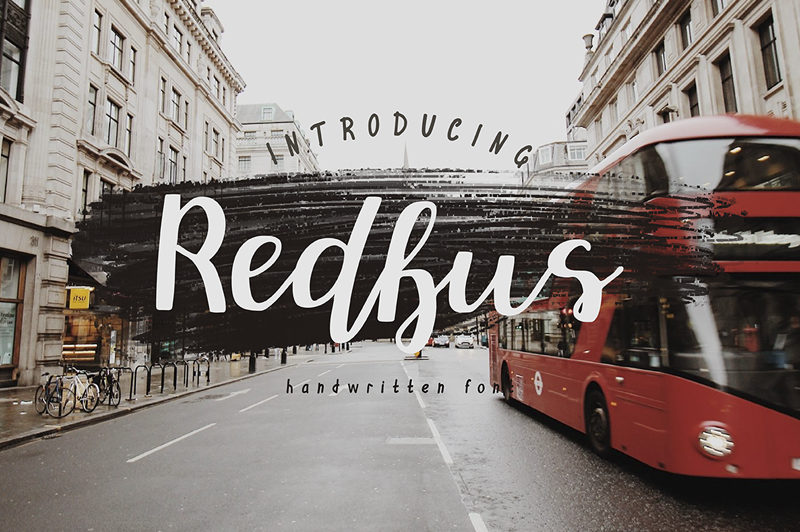
Preview and download Redbus Font. Created by Mr. Typeman in Script Handwritten styles with Demo license.
Font name: | Redbus |
Author: | Mr. Typeman |
Note by Mr. Typeman | |